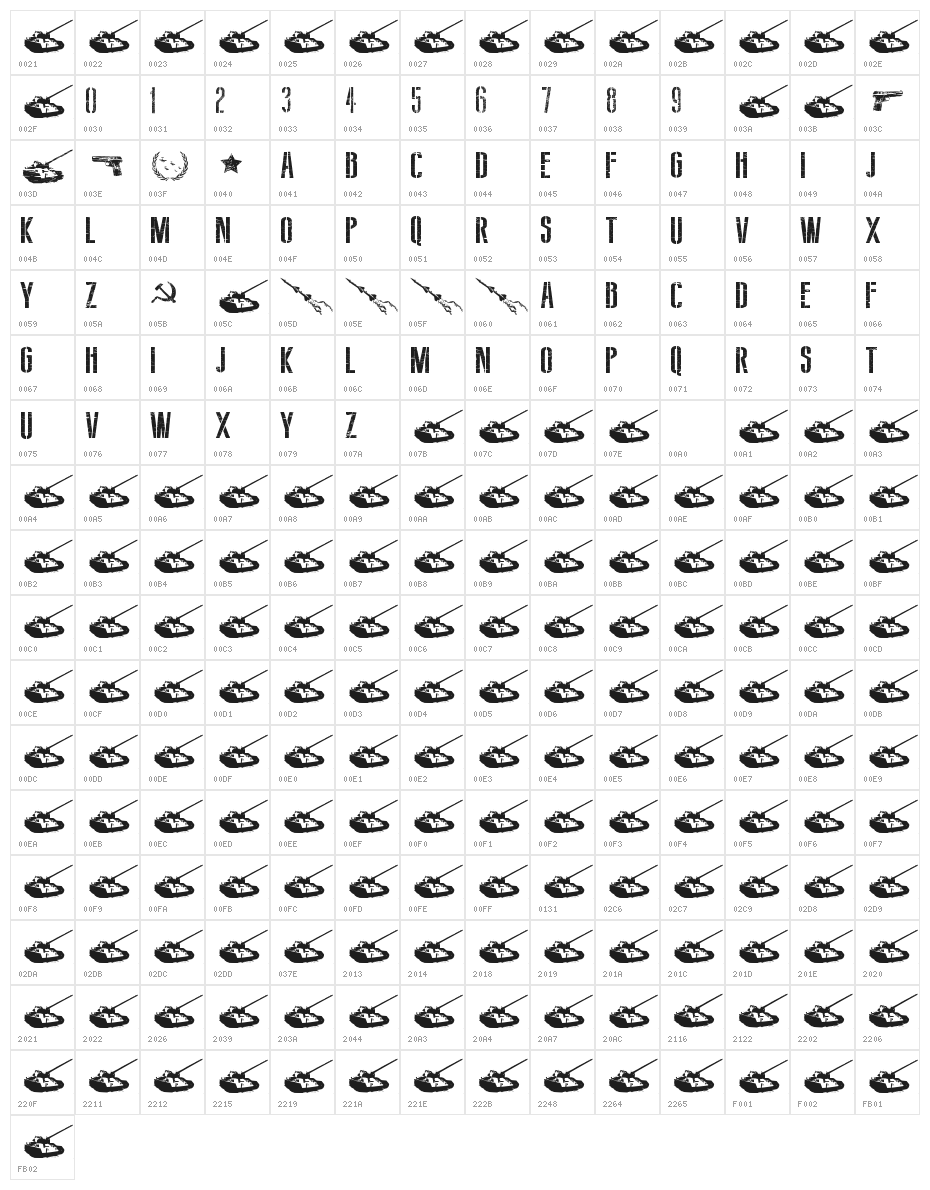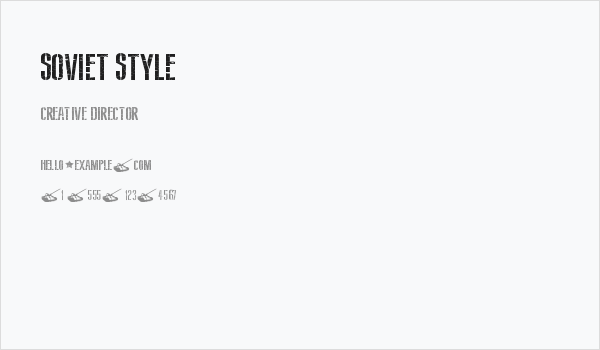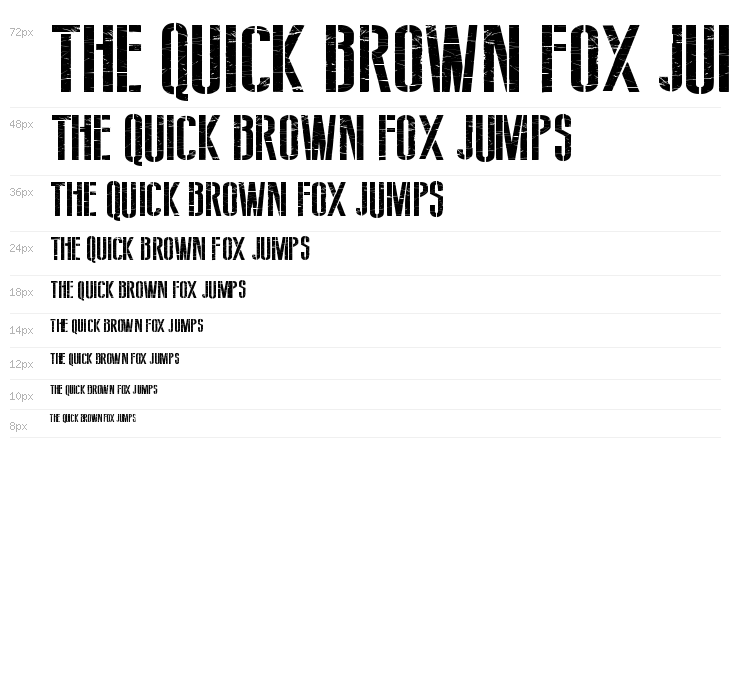
Soviet Style Font
Soviet Style Description
This font features a bold, distressed style with a distinctly rugged appearance. The characters are uppercase and exhibit a stencil-like design, reminiscent of industrial or military aesthetics. The texture is rough, with intentional imperfections that give it a worn, vintage feel. This style is evocative of Soviet-era propaganda, with a strong, authoritative presence. The letters are evenly spaced, maintaining a consistent width throughout, which enhances readability despite the distressed texture. The numbers follow the same design principles, ensuring uniformity across all characters.
| Proposed Projects | Ideal for projects requiring a vintage or industrial theme, such as posters, banners, or branding for products with a rugged or historical appeal. |